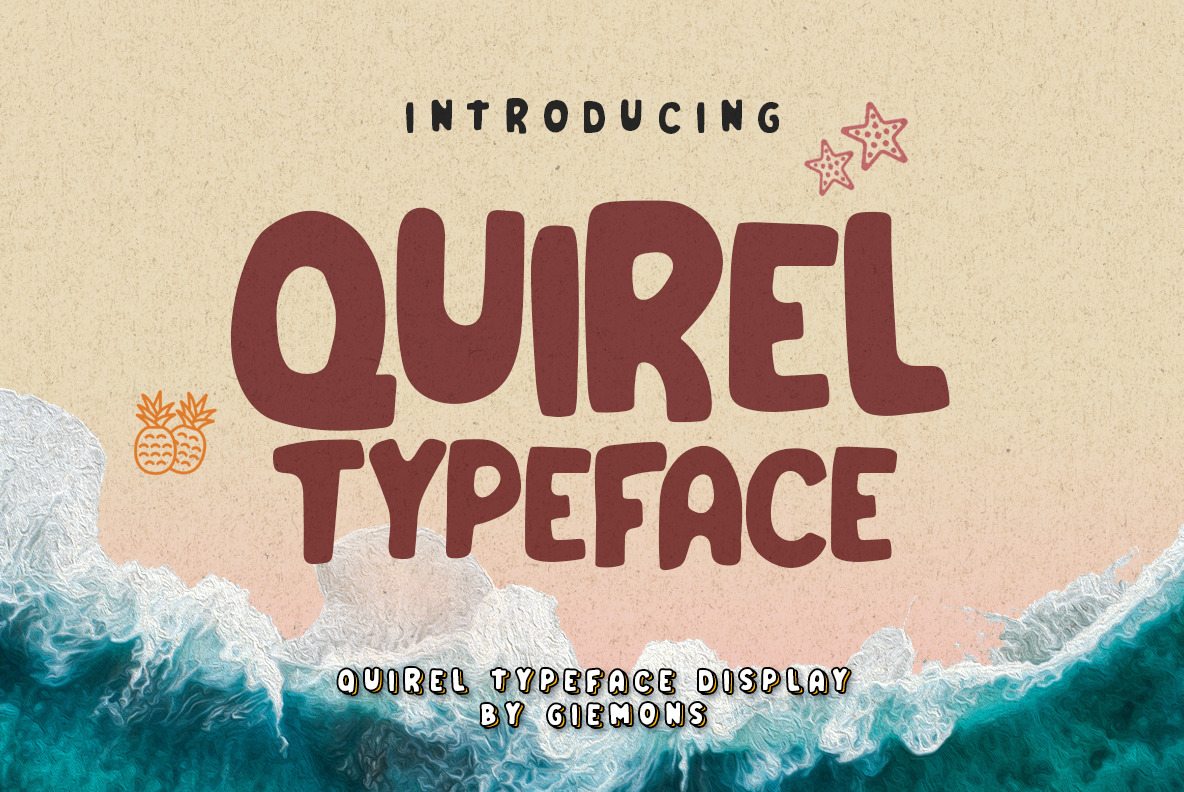
Quirel Typeface
QUIREL TYPEFACE can make it easier to convey the message in your design. Use for awesome display, labeling, clothing, movie sceen, poster, movie title, gigs, album covers, logos, and much more.
Quirel Typeface